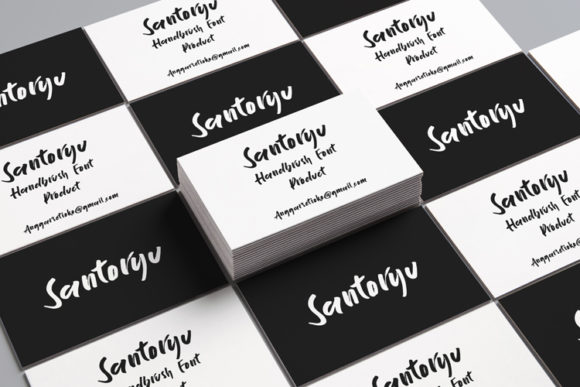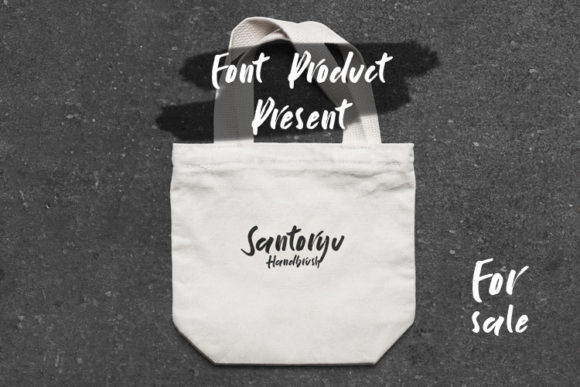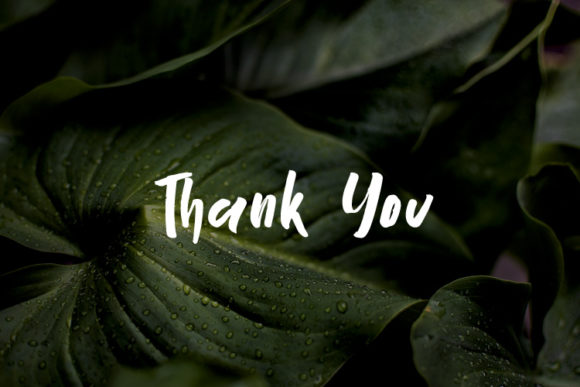
HomeScript FontsSantoryu Font Script Fonts Santoryu Font FacebookXPinterestWhatsApp Santoryu Font Poster 2 Santoryu Font Poster 3 Santoryu Font Poster 4 About Santoryu Font Santoryu is a unique script font with casual appeal. Get inspired by its contemporary coolness! DOWNLOAD NOW People also explored Hiking Advanture Font Alissa Thomas Script Font Farland Font The Amsterdam Font Mermaid Font Play Tree Font Redhot Font The Winter Font Midnight Font 370 0 TagsSantoryu Font Previous articleLiorentin Outline FontNext articleAlevantre Font LEAVE A REPLY Cancel reply Comment: Please enter your comment! Name:* Please enter your name here Email:* You have entered an incorrect email address! Please enter your email address here Website: Save my name, email, and website in this browser for the next time I comment. Personal Use Free Starting Live Personal Use Free Read more about this font Unicorn Kids Personal Use Free Read more about this font Yumail Personal Use Free Read more about this font Vanchrome Personal Use Free Read more about this font BLOG Fonts That Capture the Spirit of New York City New York City is more than just a place—it’s an experience, a rhythm, a visual language... How to Install and Use Fonts on Windows, macOS, and Web Projects Best Fonts for T-Shirt Design – Top 2025 Picks Using Fonts in Digital Marketing: Tips to Strengthen Your Brand Identity